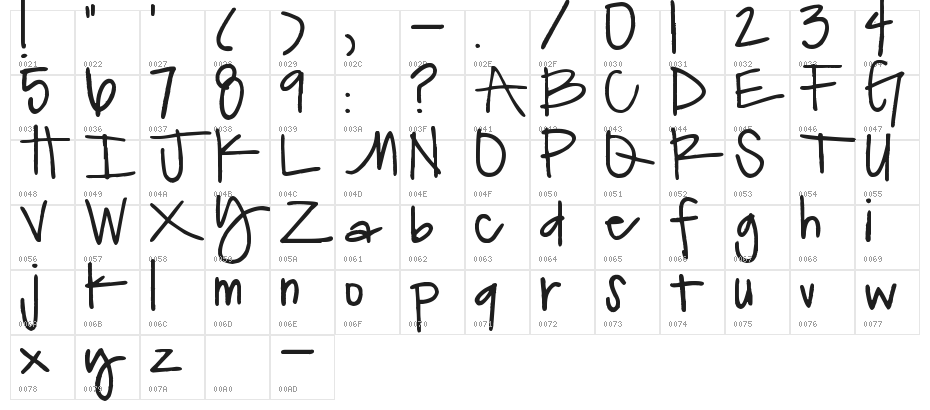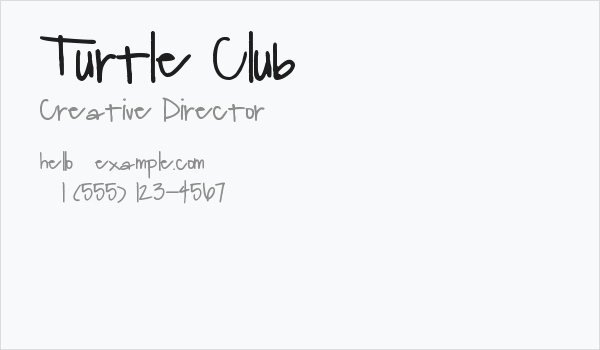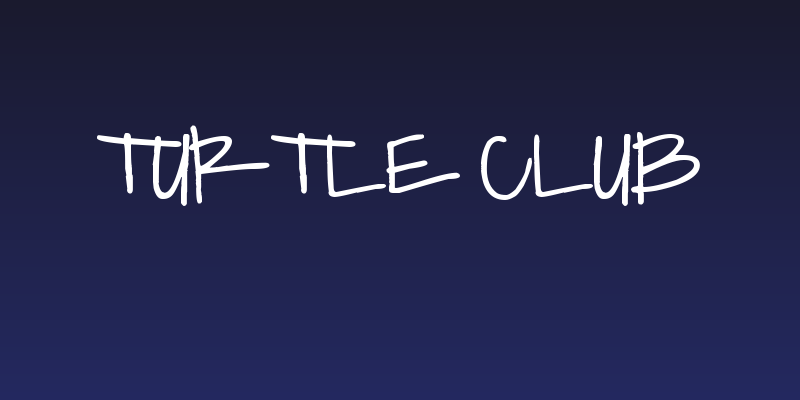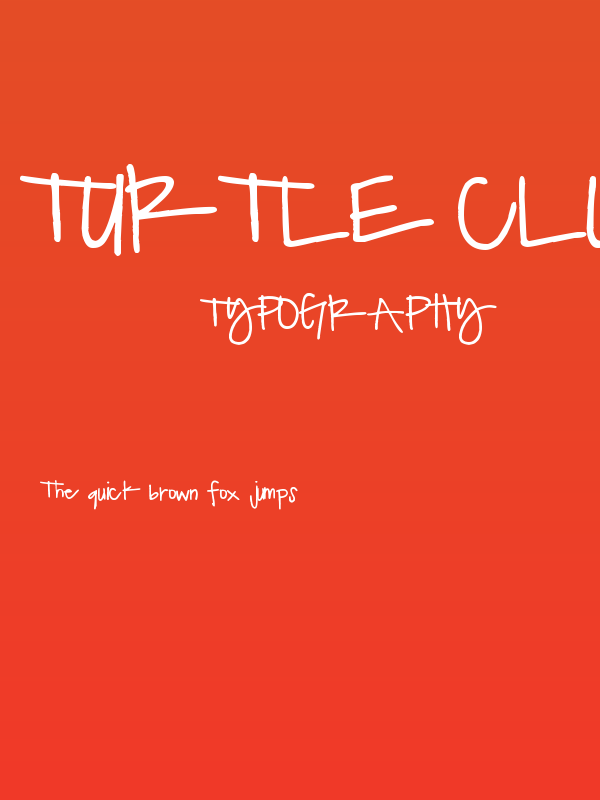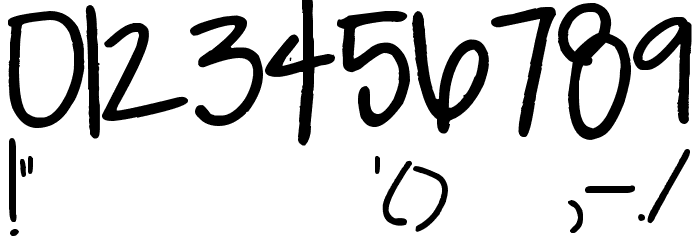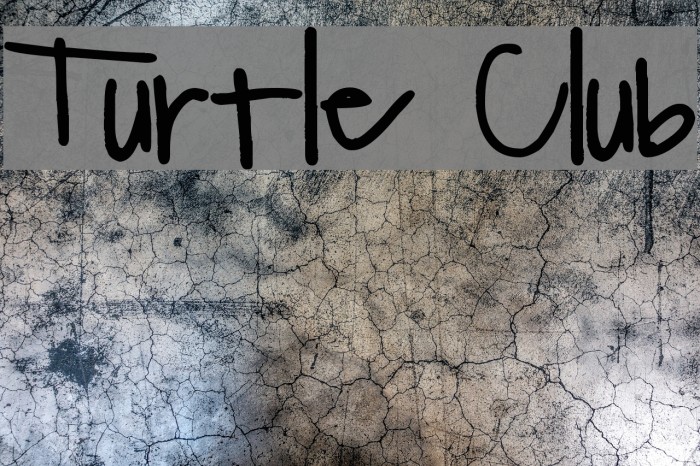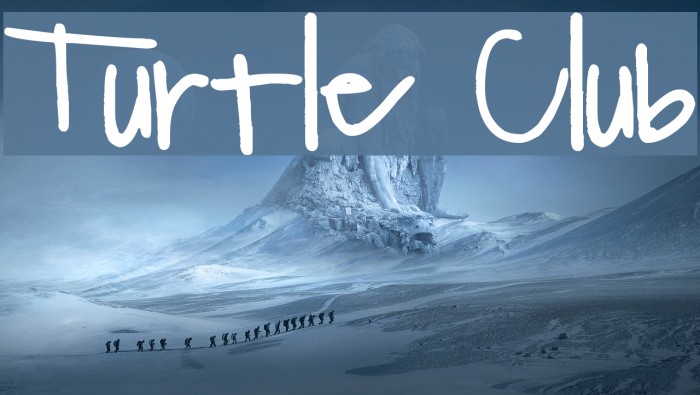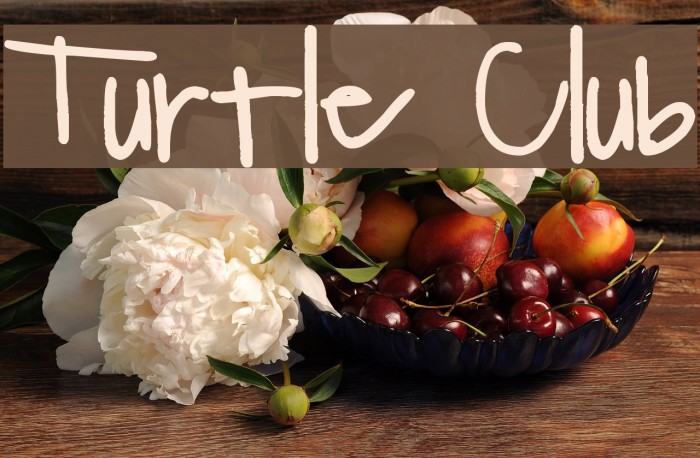
Turtle Club Font
Turtle Club Description
This font features a playful and casual handwritten style, characterized by its uneven lines and slightly tilted characters. The uppercase letters are bold and prominent, while the lowercase letters maintain a consistent flow with a slightly whimsical touch. The numbers are clear and distinct, matching the overall informal aesthetic. Special characters are creatively integrated, adding to the font's unique personality. The strokes are thick, providing a strong visual impact, yet the overall design remains approachable and friendly.